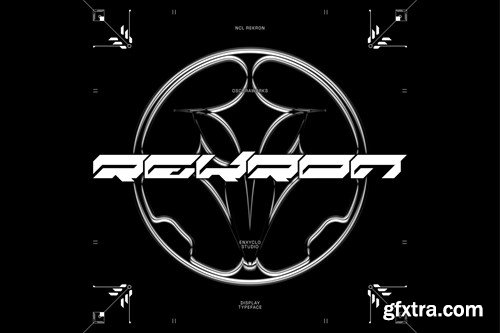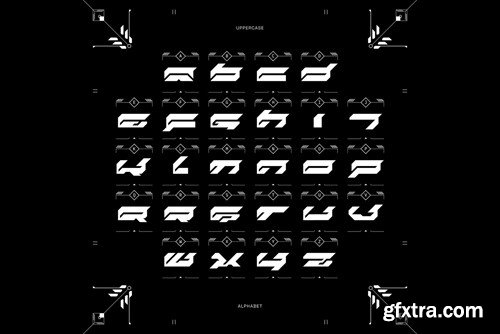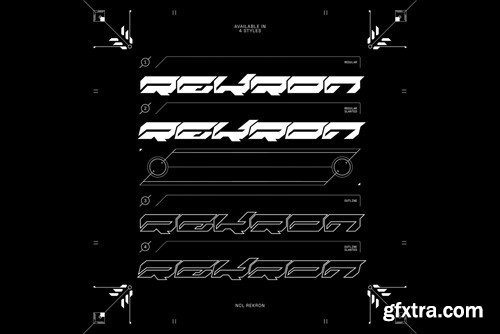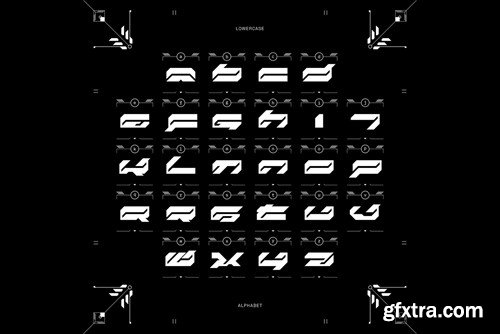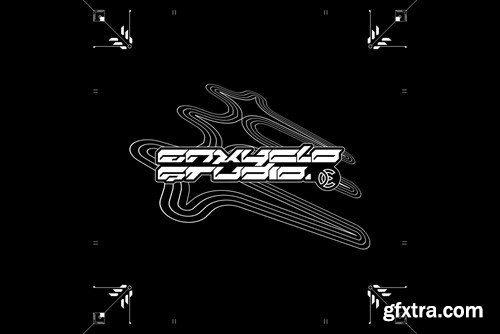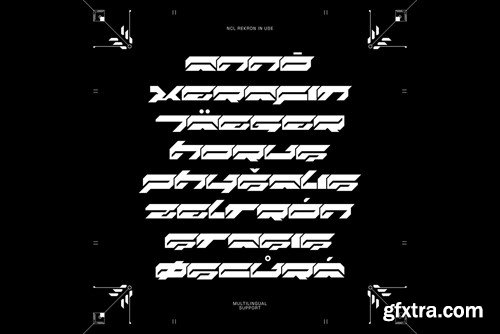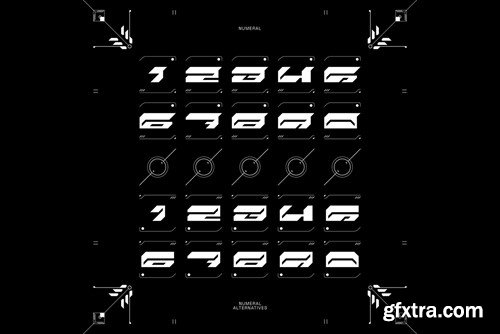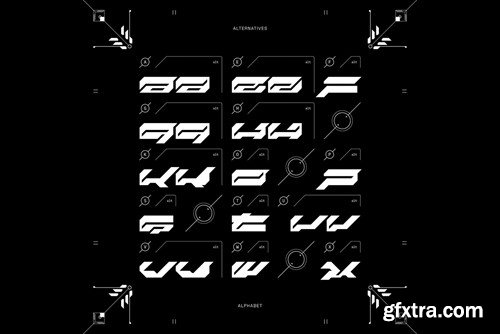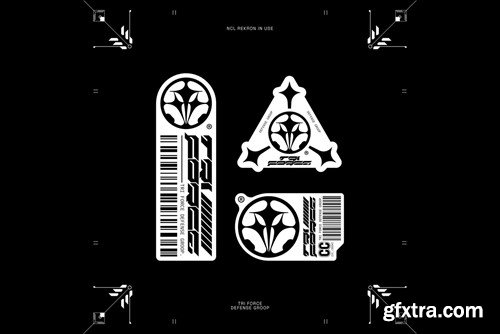
NCL Rekron - Y2K Futuristic Cyberpunk Tech Font BFLWLZK
NCL Rekron - y2k Futuristic Cyberpunk Tech Font
Make your work bolder with NCL REKRON, the ultimate futuristic y2k cyberpunk mecha typeface inspired by industrial and mecha-robotics. This stunning and powerful font cuts through the noise, bringing a bold industrial edge to your designs. With its sleek and futuristic design, this font is perfect for any futuristic or cyberpunk design, album artwork, posters, headlines, and logotypes. Add this font to your design toolkit today and unleash the cutting-edge style of this versatile font.
FEATURES
• 4 Style: Regular, Slanted, Outline, Outline Slanted
• Contains 356 Glyphs for Each Style and 1424 Glyphs for Total
• Uppercase & Lowercase
• Alternates
• Numeral, Punctuation & Symbols